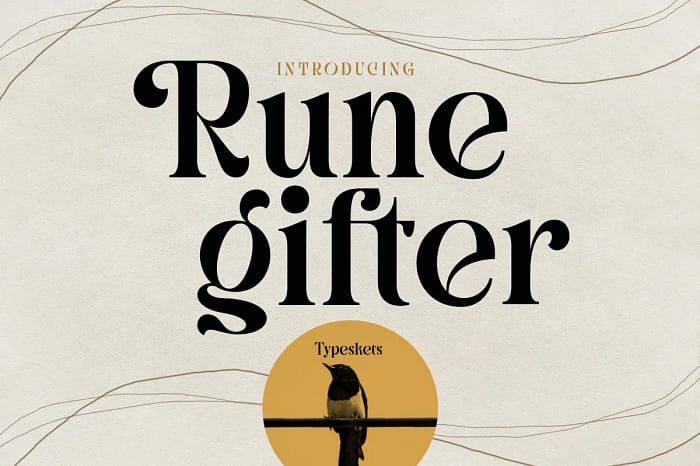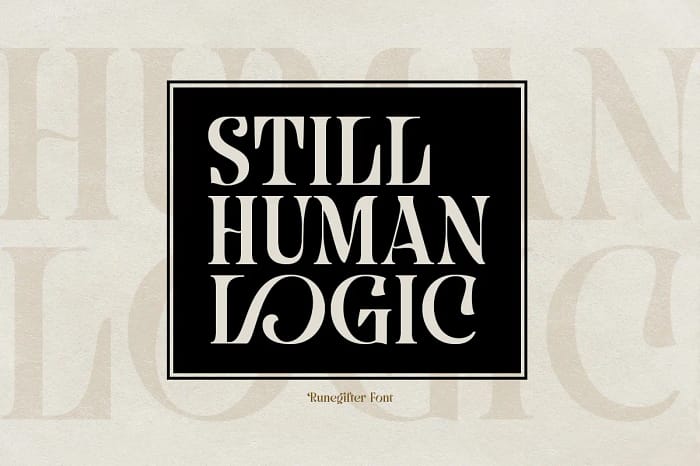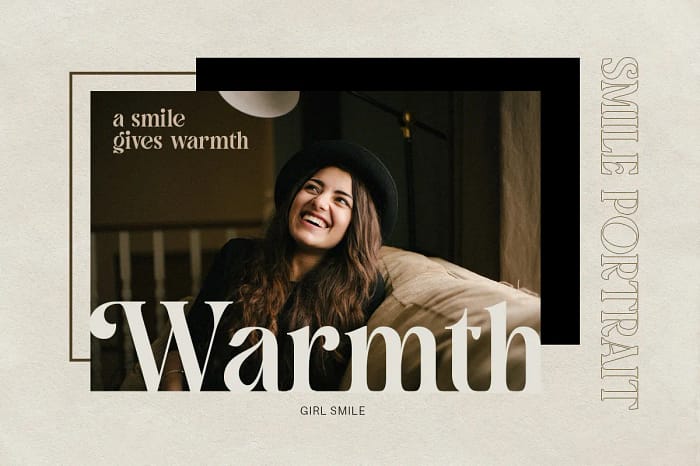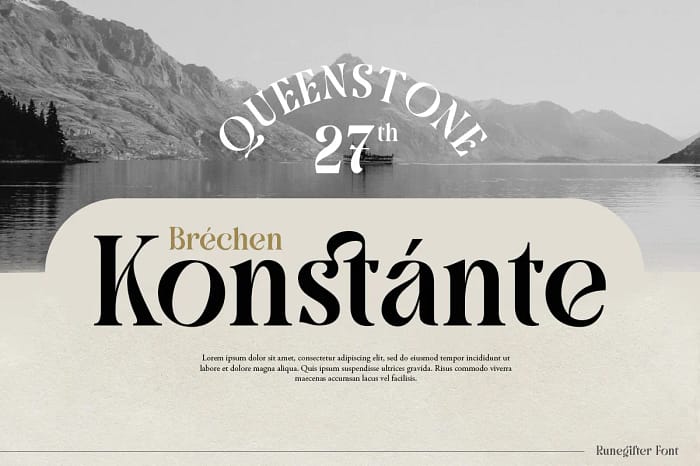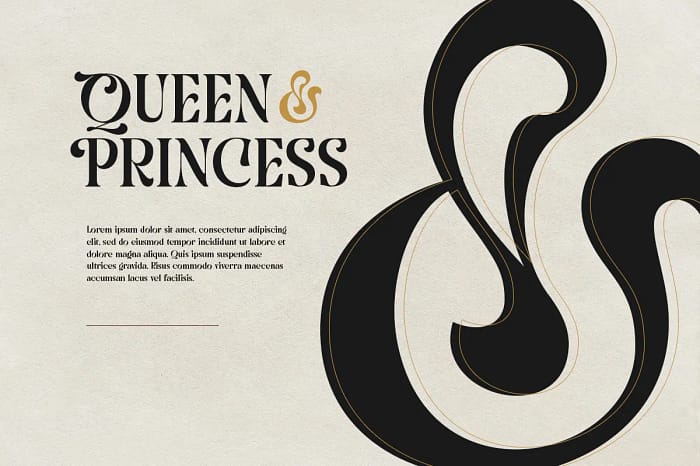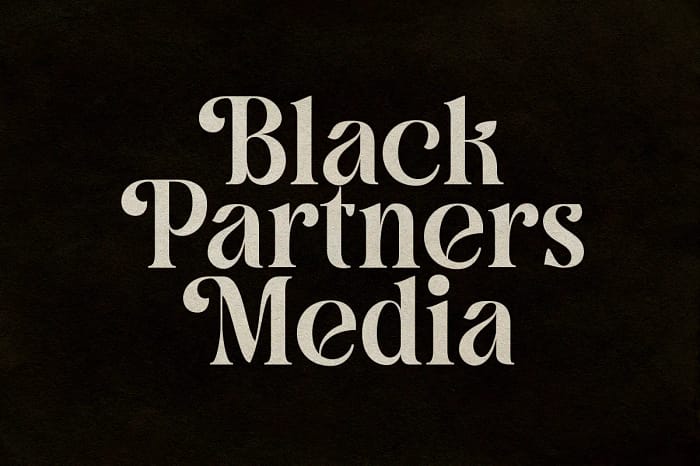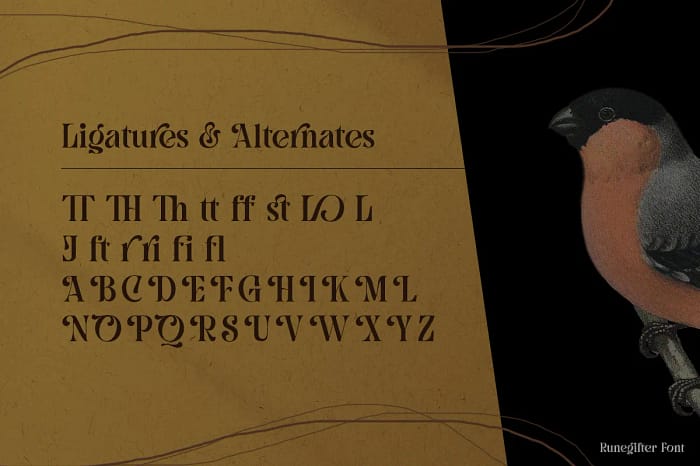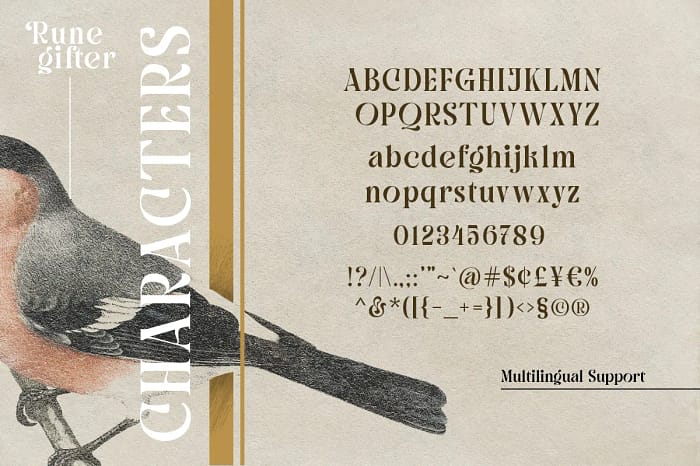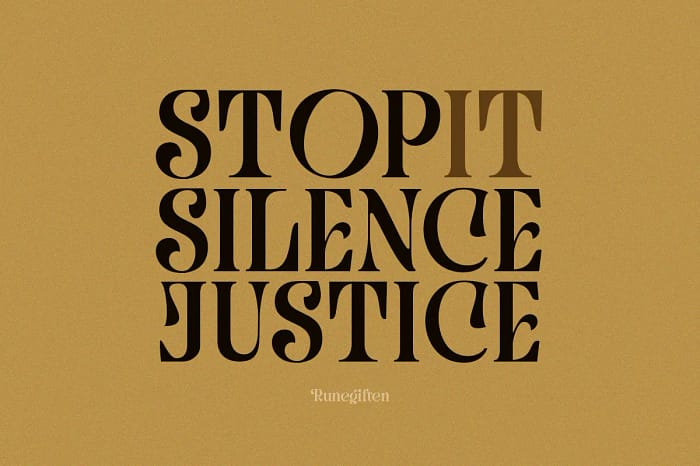
Rune Gifter is a bold, modern and cool serif font. It is defined by smooth curves and is perfect for fashion branding or editorial designs. Add it confidently to your projects, and you will love the results.